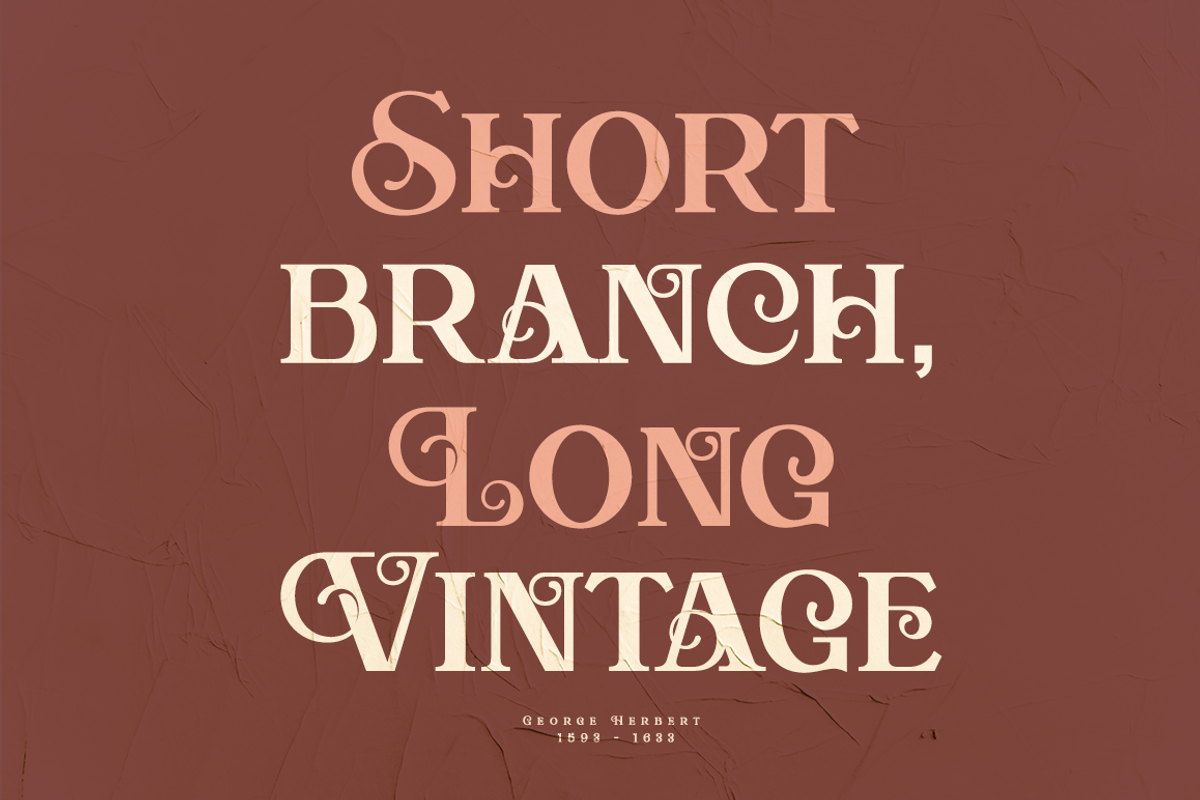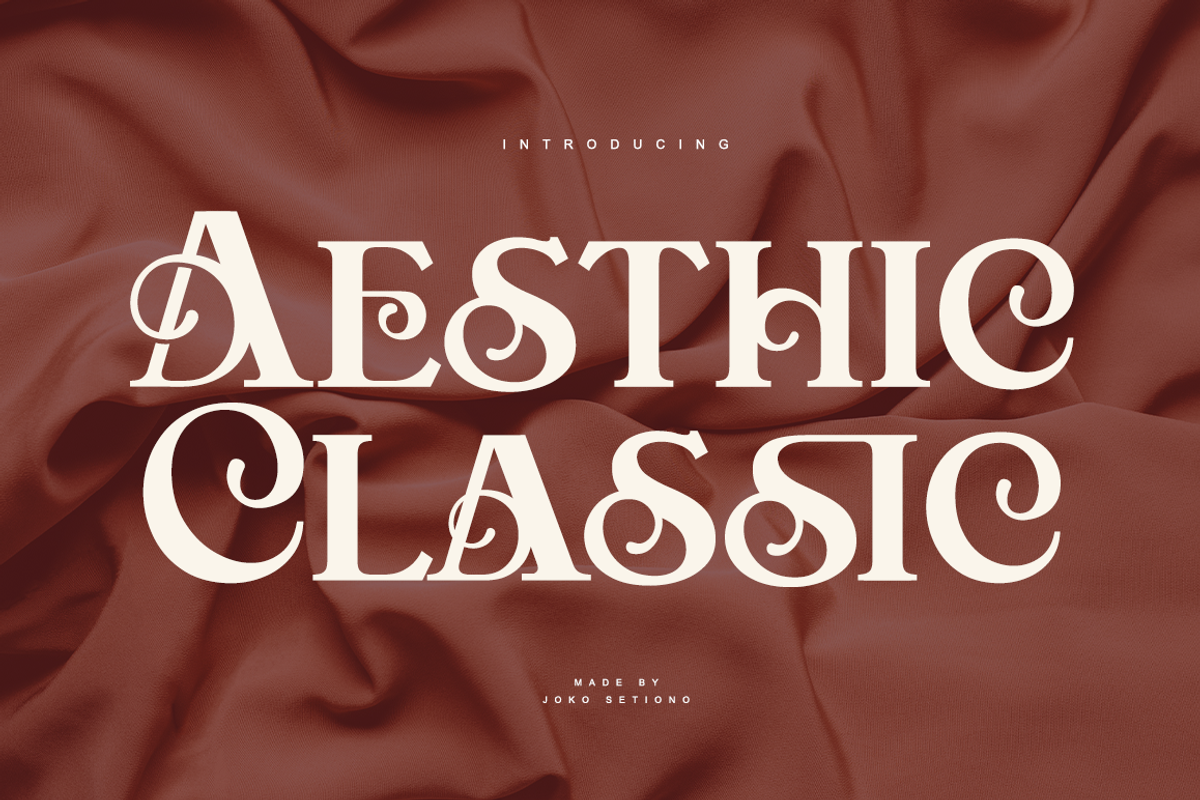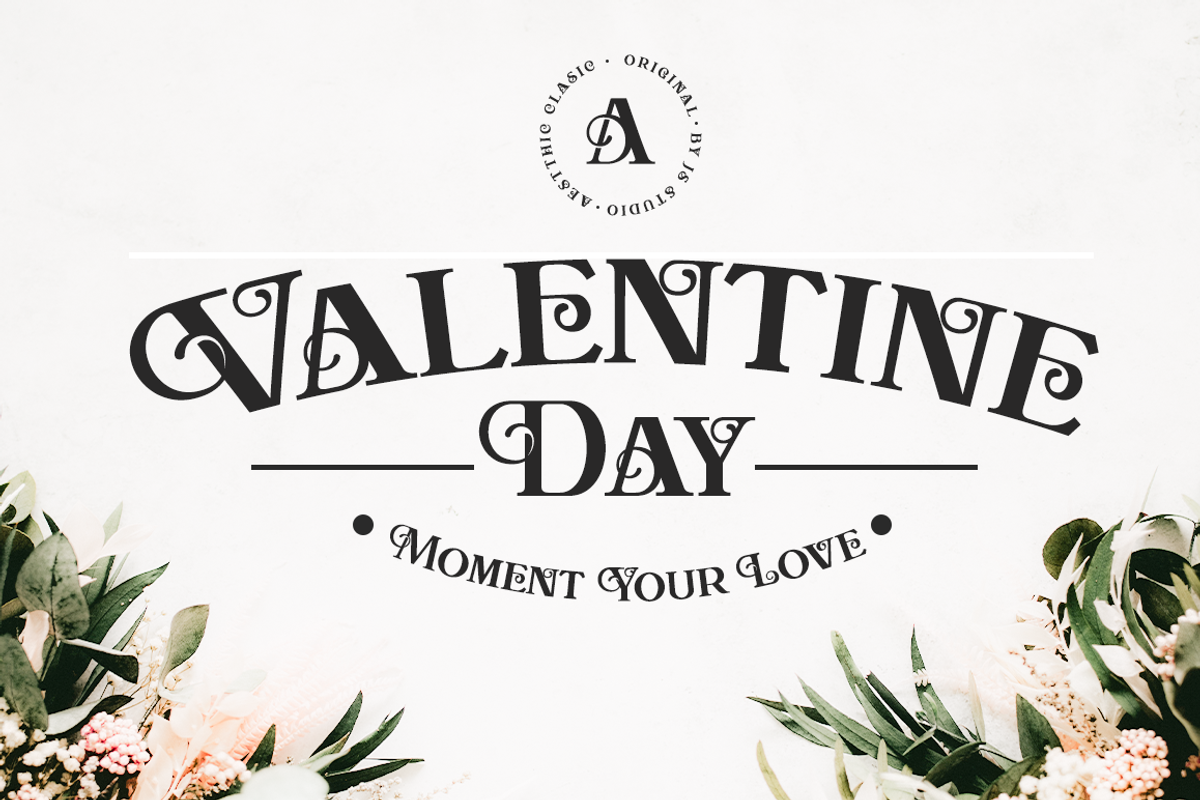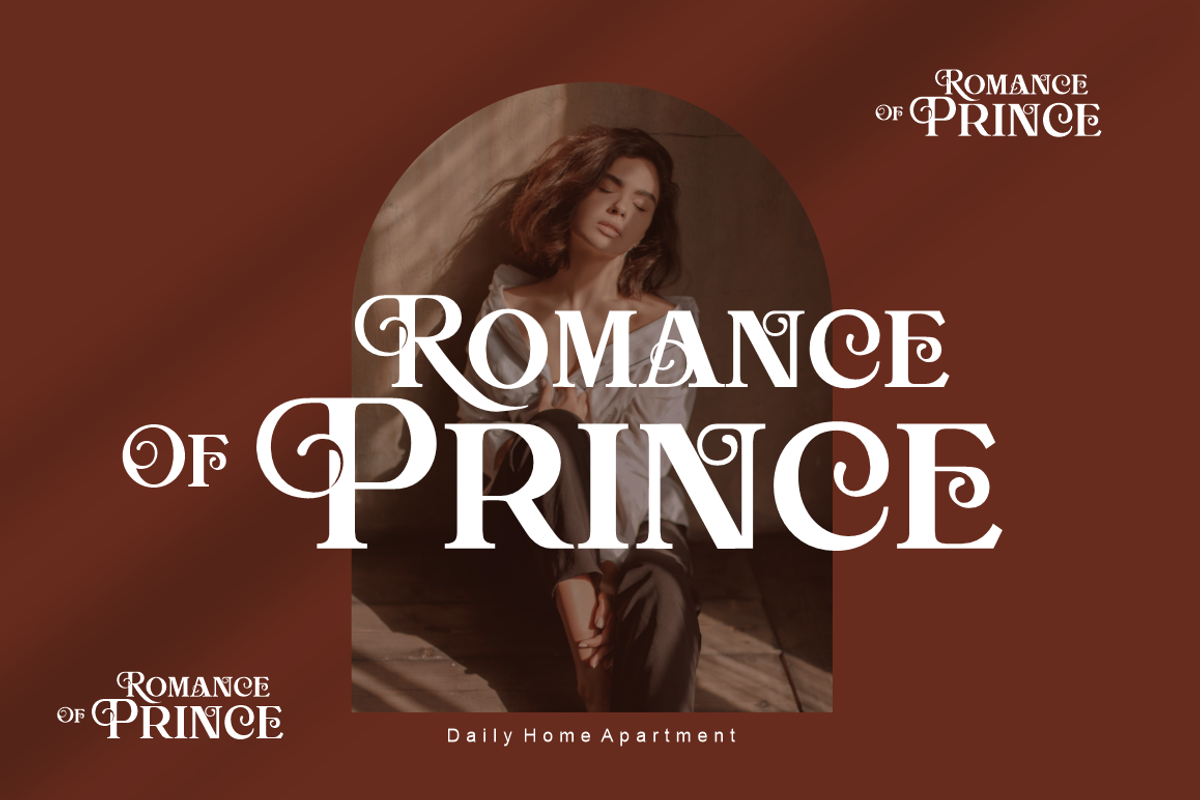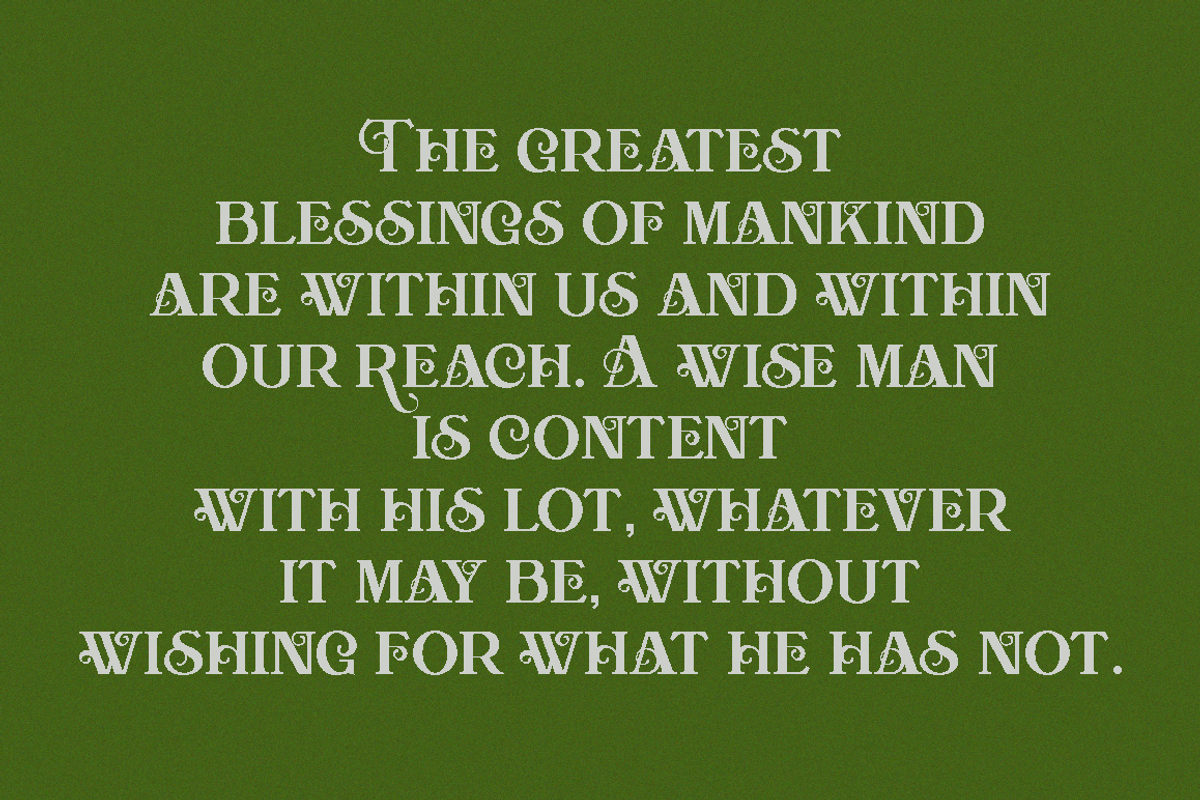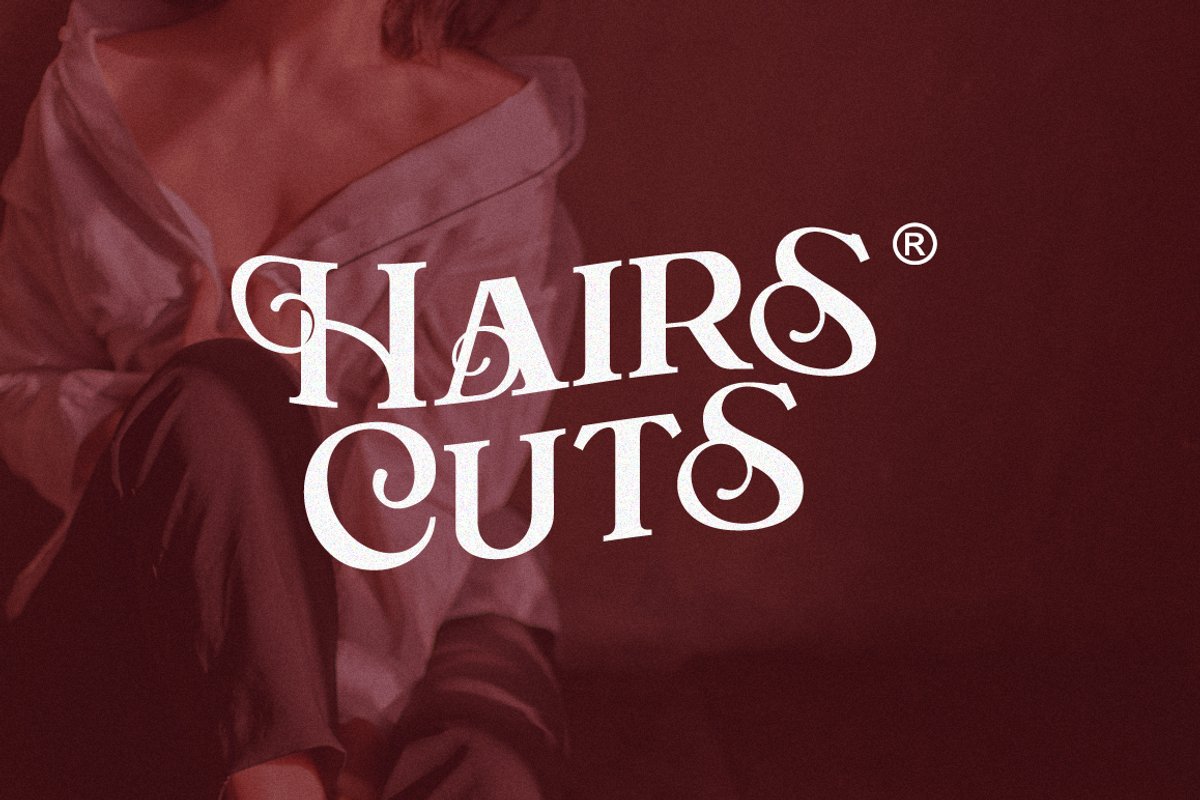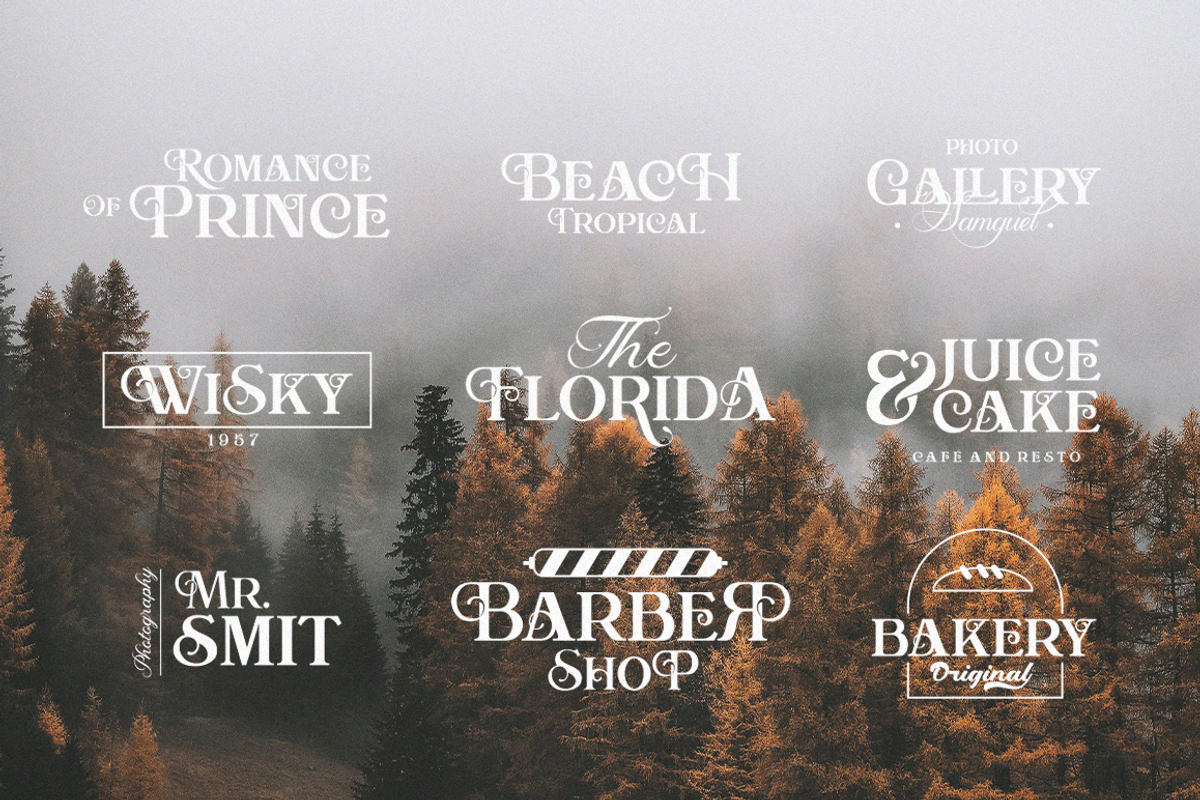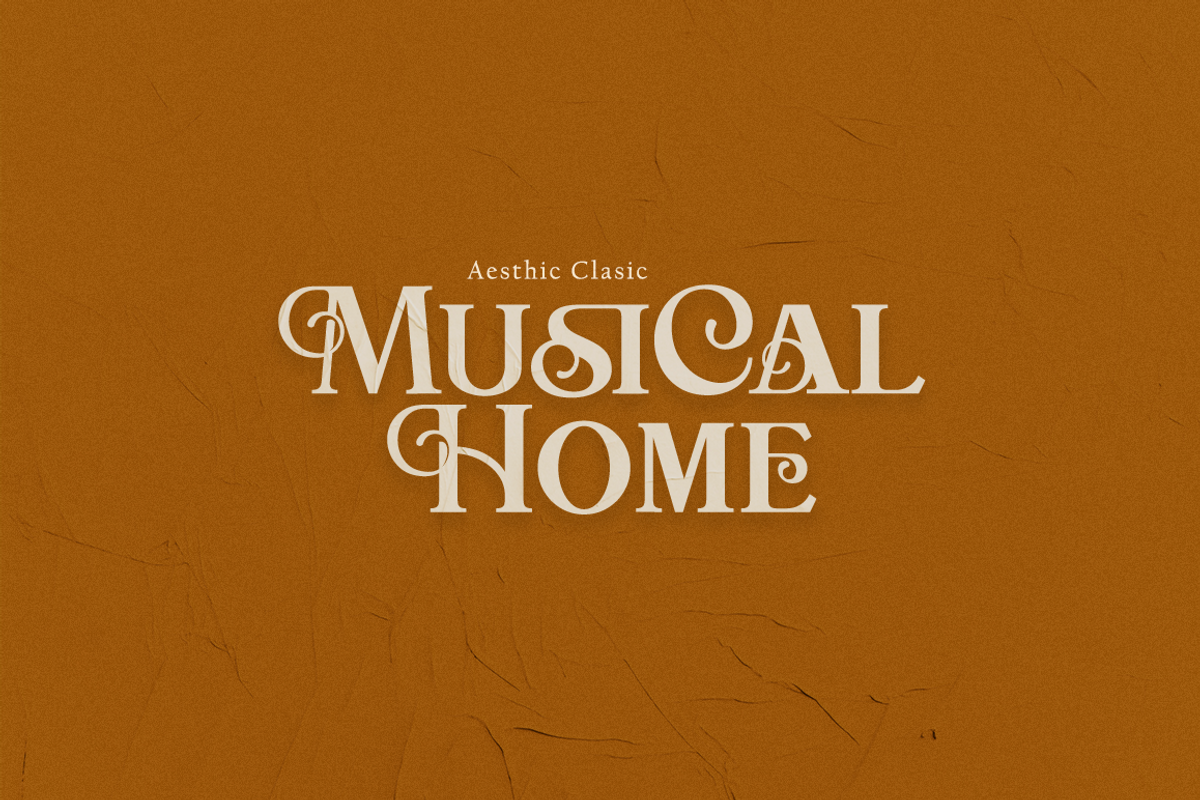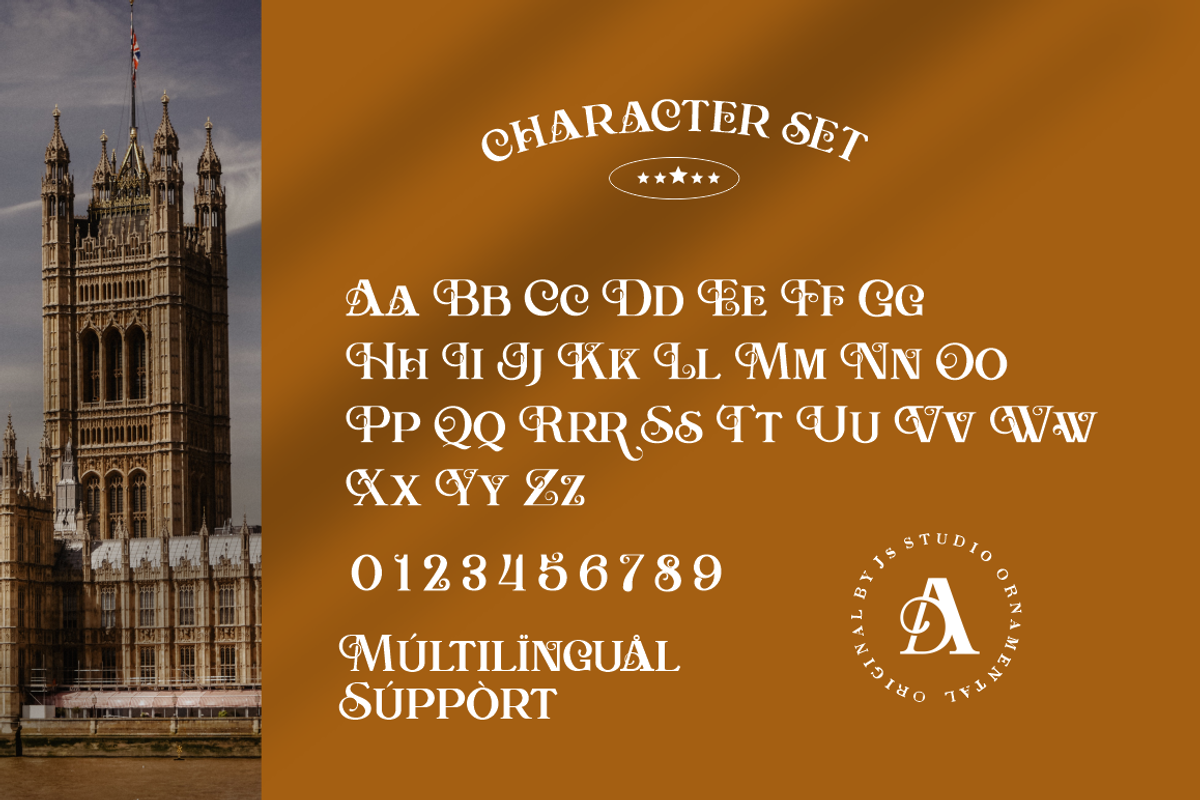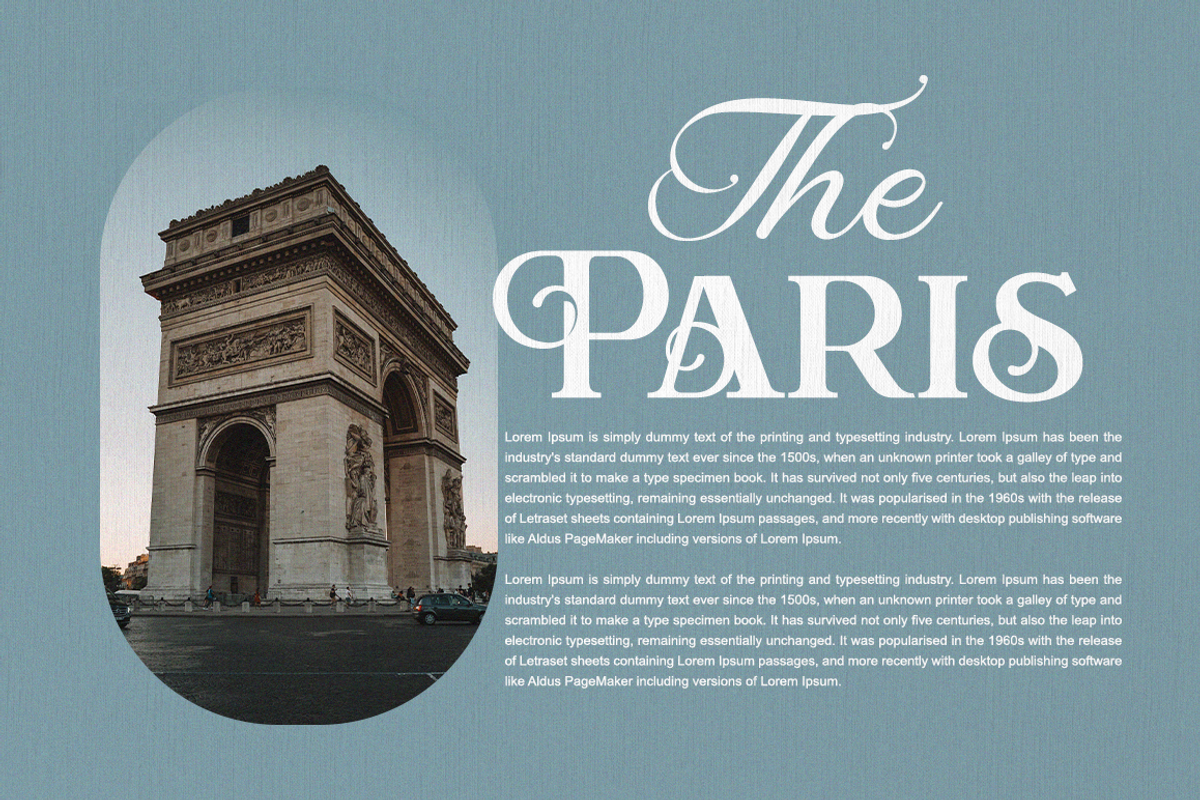
Aesthic Classic
Aesthic Classic is a serif font with Old Victorian. made with smooth curves, adding a modern impression with classic characteristics.
The Aesthic classic comes with two weights. very suitable for logo, branding, valentine event. sublimation logo, magazine, catolog and t-shirt.
- multilingual support
- LIgature